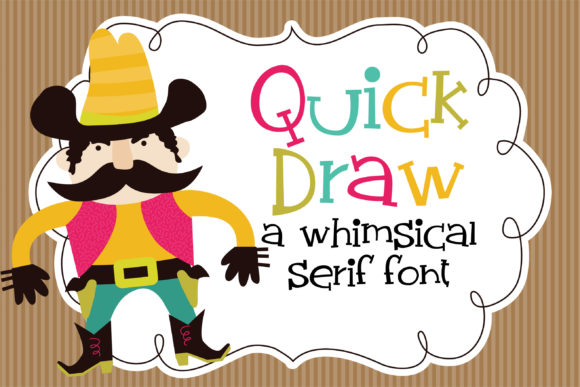
Immerse yourself in the captivating world of Quick Draw, a beguiling serif font crafted by the ingenious minds at Illustration Ink. Each character dances and twirls across the page, leaving an indelible mark that whispers of creativity and flair.
Embark on a visual adventure as Quick Draw breathes life into your designs, transforming them into captivating masterpieces. Its intricate strokes and playful curves ignite a spark of inspiration, enticing your audience to embark on a journey of imaginative delight.
Whether you're a seasoned designer seeking a touch of whimsy or a creative soul yearning to express your uniqueness, Quick Draw is your trusted companion. Its versatility shines through in an array of applications, from social media posts that captivate the senses to DIY projects that radiate warmth and charm.
Picture your Instagram feed adorned with Quick Draw's enchanting presence, captivating your followers with its unique charm. Its graceful lines and alluring curves invite interaction, turning every post into an interactive spectacle.
Unleash your inner artist and let Quick Draw guide you through a symphony of colors and creativity. Its adaptability knows no bounds, seamlessly blending with your design vision to create projects that radiate individuality and style.
From elegant wedding invitations that exude timeless beauty to eye-catching logos that command attention, Quick Draw is your secret weapon to leave an unforgettable impression.
With Quick Draw as your creative ally, you'll transform ordinary designs into extraordinary works of art. Its charming nature captivates hearts, leaving a lasting impact that whispers of your creative genius.
Take the first step towards design excellence and embrace Quick Draw's captivating allure. Its playful spirit and undeniable beauty await your imagination's touch. Dare to be different, dare to be inspired, and let Quick Draw ignite the fire within you.